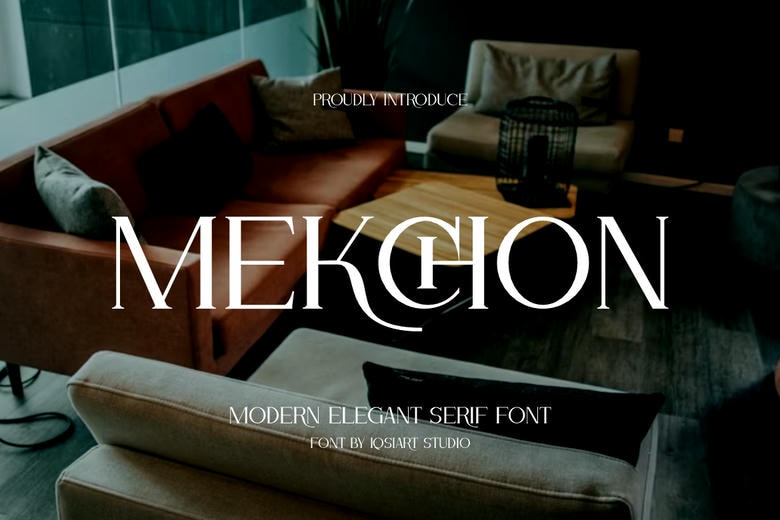
Mekchon Font
Mekchon is a modern elegant serif font. This font has clean, elegant ends and distinctive character ligatures giving it a bespoke, high-fashion look. It fits best in the high-end interior design branding, boutique logos, and fancy invitations when the elegance is in the first place.
Mekchon Serif Font